Best Packaging Fonts for Product Labels
Discover the best packaging fonts for product labels, including luxury, modern, and vintage styles for beauty, food, and premium branding.
Choosing the right packaging font is one of the most important decisions in product label design. The typography on a product label does more than display information. It shapes how customers perceive the brand, communicates quality, and helps products stand out on crowded retail shelves.
The best packaging fonts for product labels combine strong personality with excellent readability. They must remain clear at small sizes while still expressing the visual identity of the brand. Whether used for beauty products, artisanal foods, luxury goods, or boutique packaging, the right font can transform a simple label into a powerful branding element.
In this guide, we explore some of the best packaging fonts for product labels, including elegant serif fonts, modern branding typefaces, and distinctive display styles that help products create memorable shelf presence.
What Makes a Good Packaging Font?
Packaging typography must balance aesthetics and functionality. A font may look beautiful in a large headline but fail when printed on a small label or curved bottle.
The best packaging fonts typically share several key characteristics.
1. Strong Readability
Product labels often contain important information such as ingredients, instructions, and brand names. Fonts must remain readable at small sizes and under different lighting conditions.
2. Brand Personality
Typography should reflect the product’s positioning. A luxury perfume label may use elegant serif fonts, while an organic food brand may choose warm handwritten styles.
3. Shelf Impact
In retail environments, packaging competes for attention. Display fonts with distinctive shapes can help products stand out from competitors.
4. Versatility
Good packaging fonts work across multiple formats including:
bottle labels
box packaging
marketing materials
websites
social media visuals
A versatile typeface ensures brand consistency across touchpoints.
Best Packaging Fonts for Product Labels
Below are several excellent packaging fonts that work well across different product categories.
Author – Unique Display Branding Vintage Font
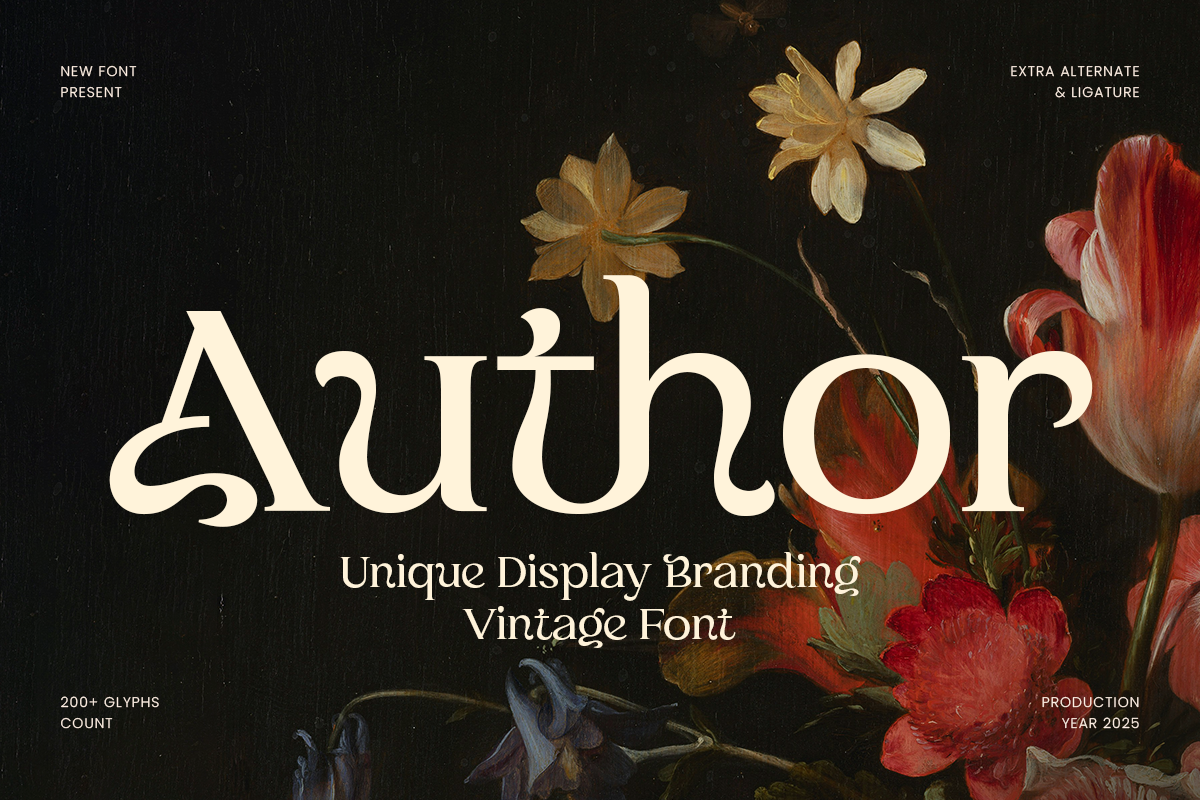
Author is a distinctive vintage display font designed to bring nostalgic character and strong personality to product packaging. Its bold structure and retro-inspired style create a sense of heritage that works particularly well for artisanal and handcrafted products.
This font is ideal for packaging that aims to evoke tradition and authenticity. Coffee brands, craft beverages, handmade goods, and specialty food labels often benefit from vintage typography that communicates craftsmanship and story.
Lavisha – Modern Classy Lavish Serif Font
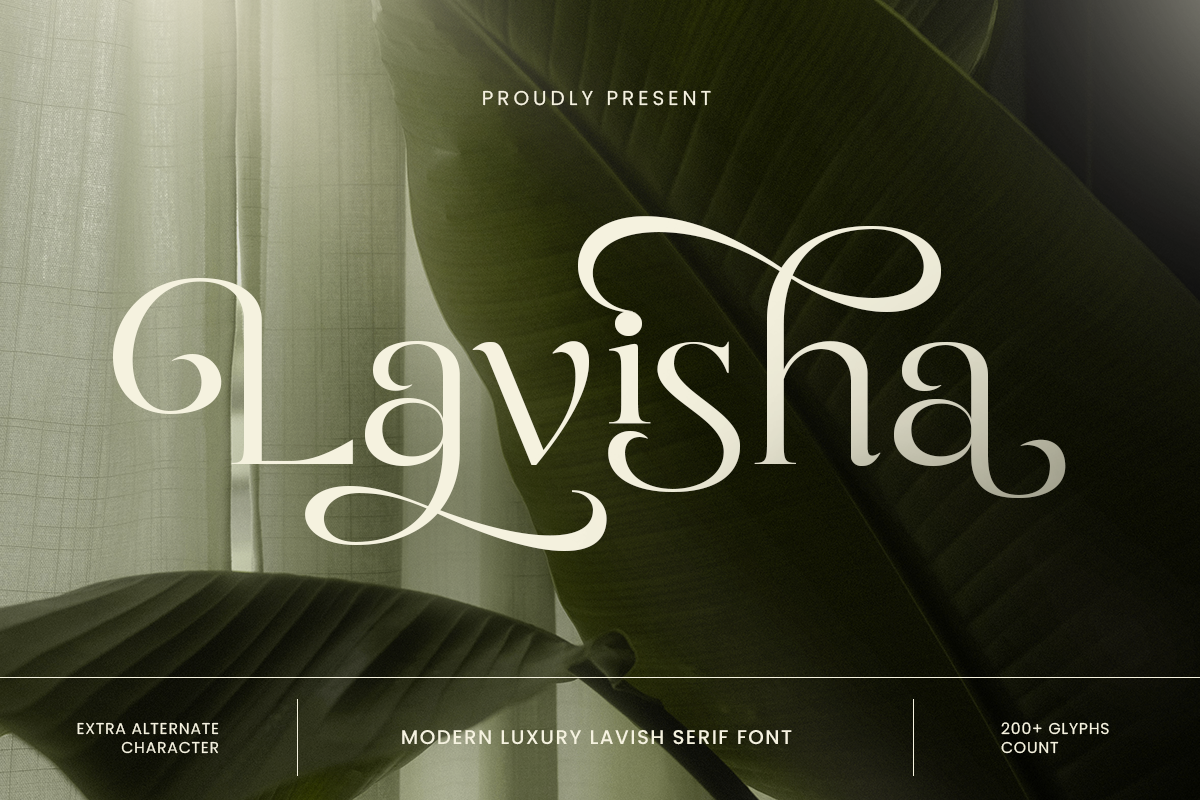
Lavisha is an elegant serif typeface designed for refined and premium branding. With its graceful letterforms and stylish proportions, Lavisha brings sophistication to product labels and packaging design.
Luxury packaging often relies on serif fonts because they communicate heritage, quality, and trust. Lavisha works particularly well for brands that want to express elegance without appearing overly traditional.
The font is commonly used in industries such as beauty, cosmetics, fashion, and boutique retail. Its balanced letterforms help labels feel polished while maintaining readability.
Belfan – Modern Exclusive Branding Font
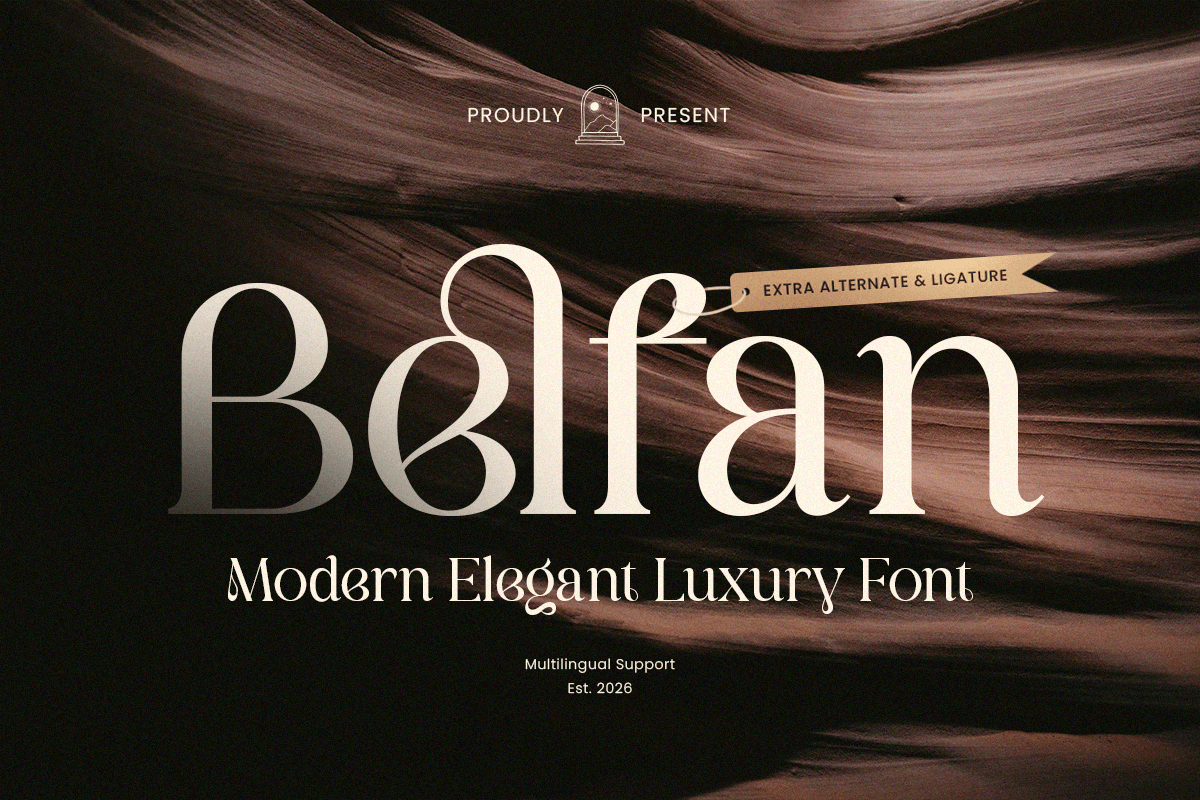
Belfan is a modern luxury branding font that delivers a sleek and refined typographic presence. The design combines contemporary simplicity with high-end elegance, making it well suited for premium packaging systems.
In modern packaging design, minimalism often plays an important role. Belfan’s clean structure allows product labels to feel sophisticated without becoming visually cluttered.
Brands in cosmetics, fashion, skincare, and lifestyle products frequently use modern serif fonts like Belfan to create an upscale aesthetic.
Moselina – Elegant Ligature Serif Font
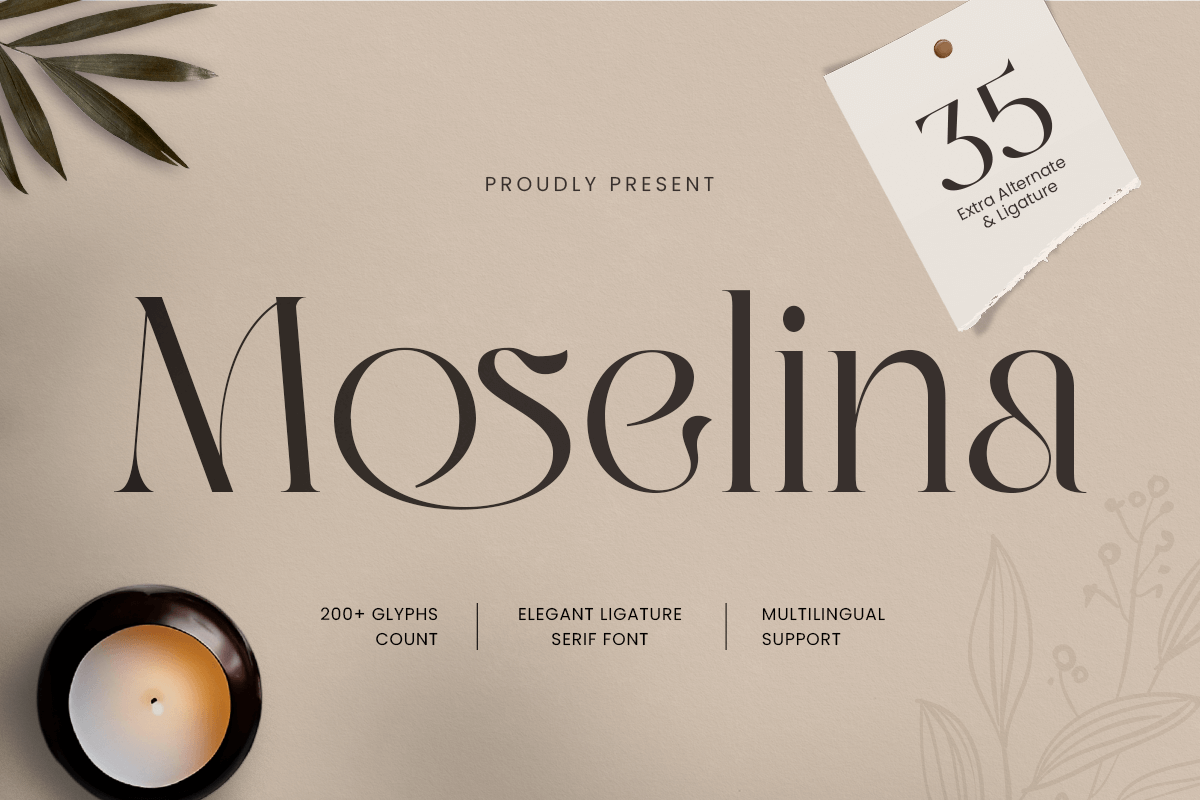
Moselina is a distinctive ligature serif typeface that adds expressive elegance to packaging typography. Its carefully crafted ligatures create a flowing typographic rhythm that feels refined and memorable.
Ligature fonts are particularly effective for branding because they introduce subtle uniqueness into the letterforms. This helps product labels feel more distinctive and recognizable.
Moselina is well suited for high-end product packaging that emphasizes elegance and visual storytelling.
Goldens – Serif Luxury Branding Logo Font
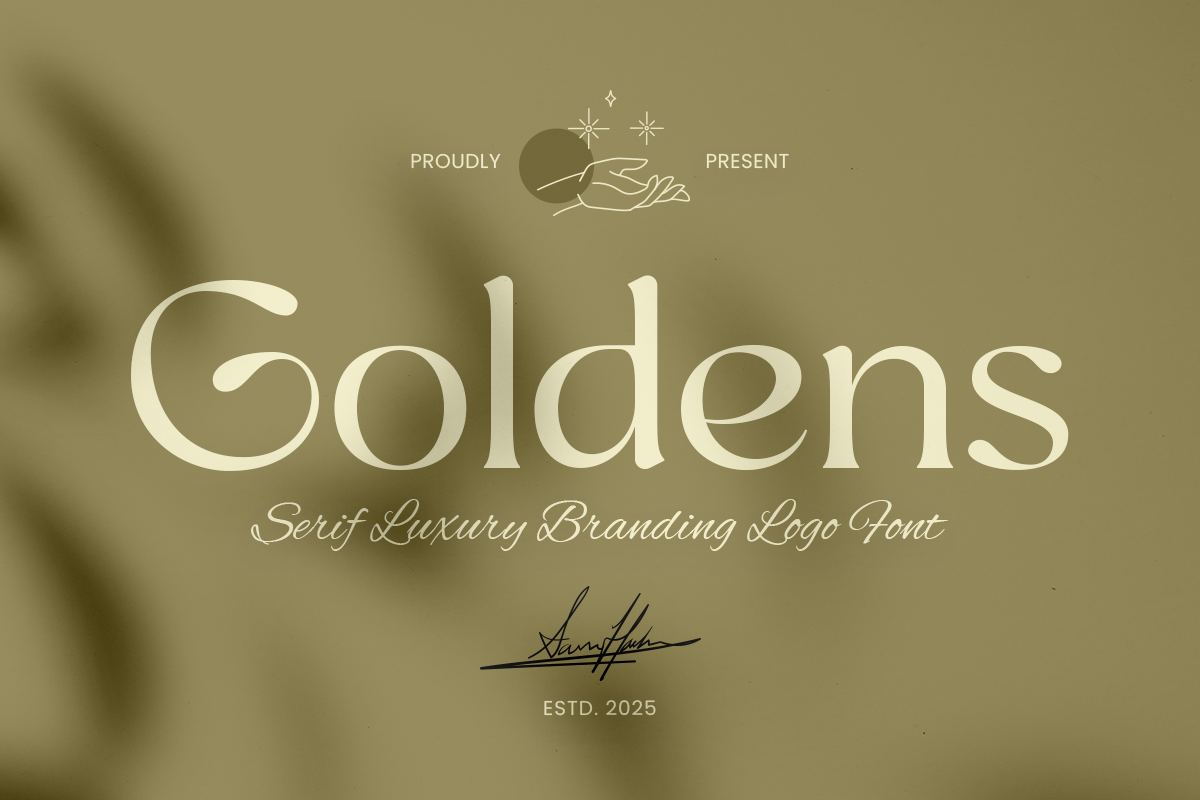
Goldens is a luxury serif branding font designed to convey timeless sophistication. With refined serif details and balanced proportions, Goldens helps product packaging appear polished and premium.
Typography plays a powerful role in product packaging design. The best packaging fonts for product labels balance visual personality with clear readability, helping products communicate quality while capturing attention on the shelf.
When typography aligns with the brand story and product category, packaging becomes more than a functional label. It becomes a strategic design tool that strengthens brand recognition and influences purchasing decisions.